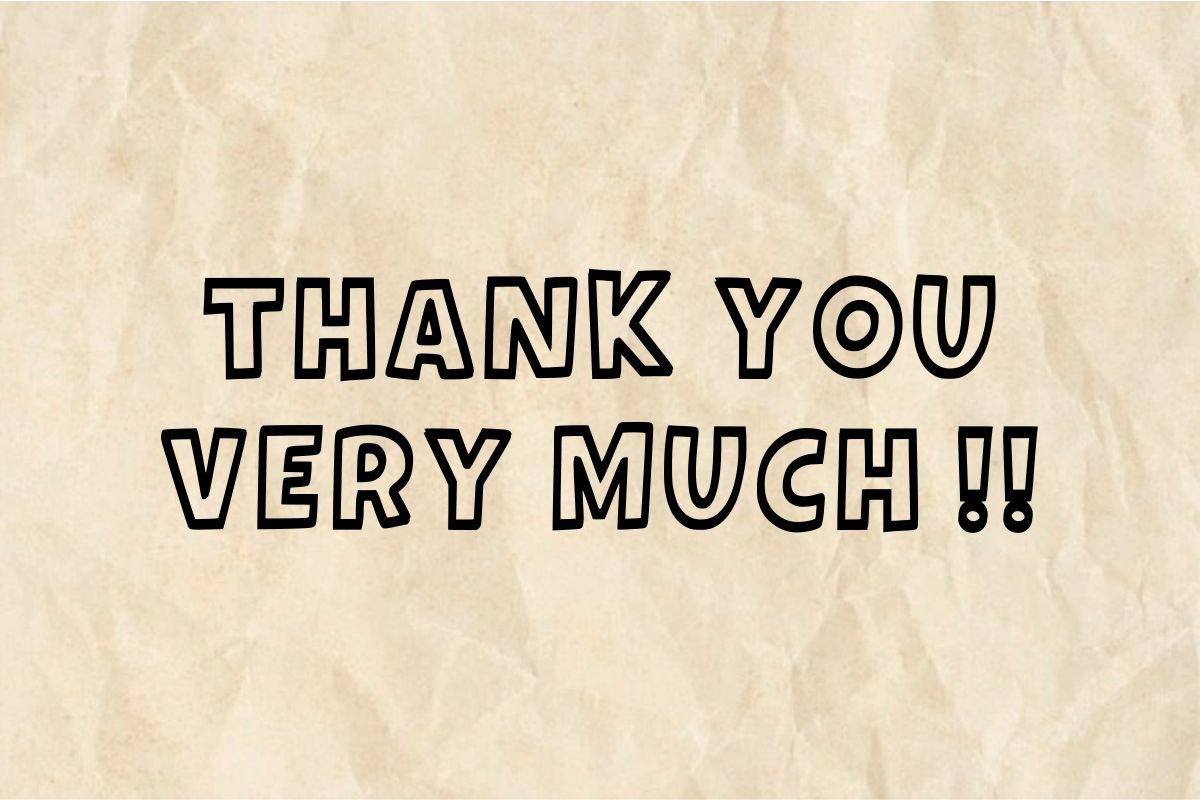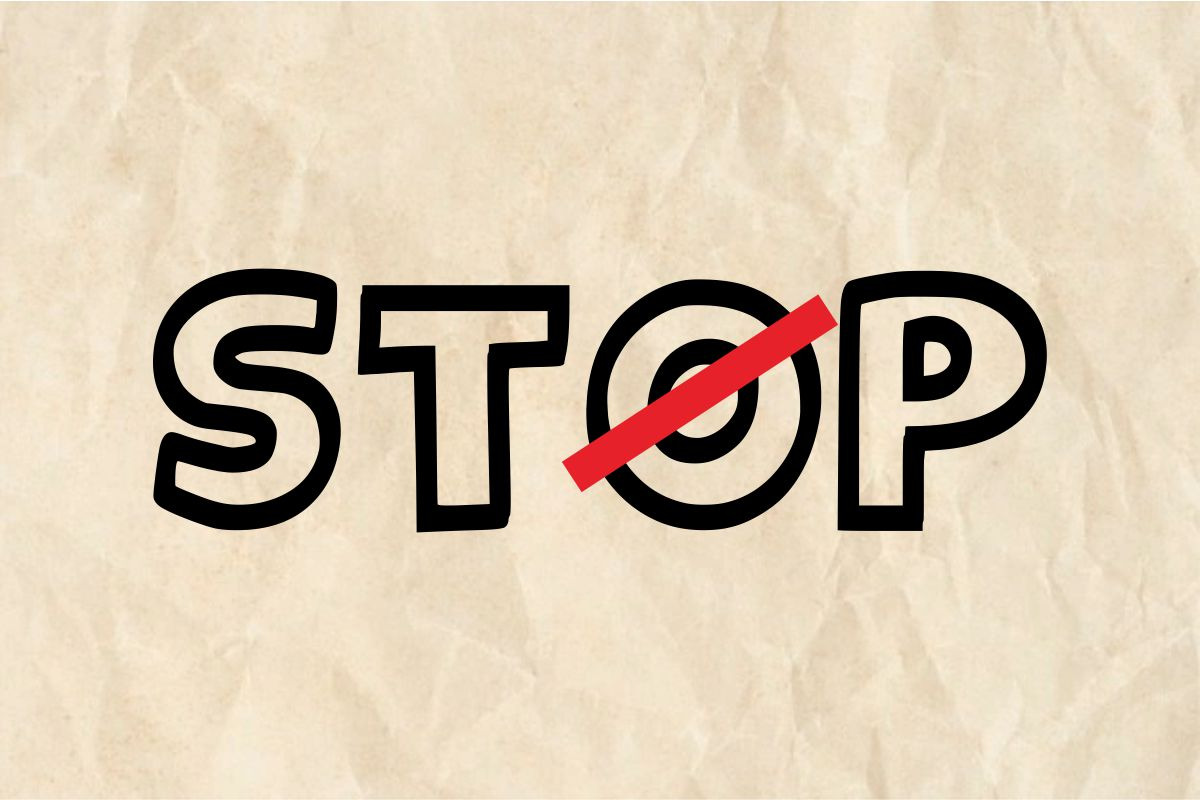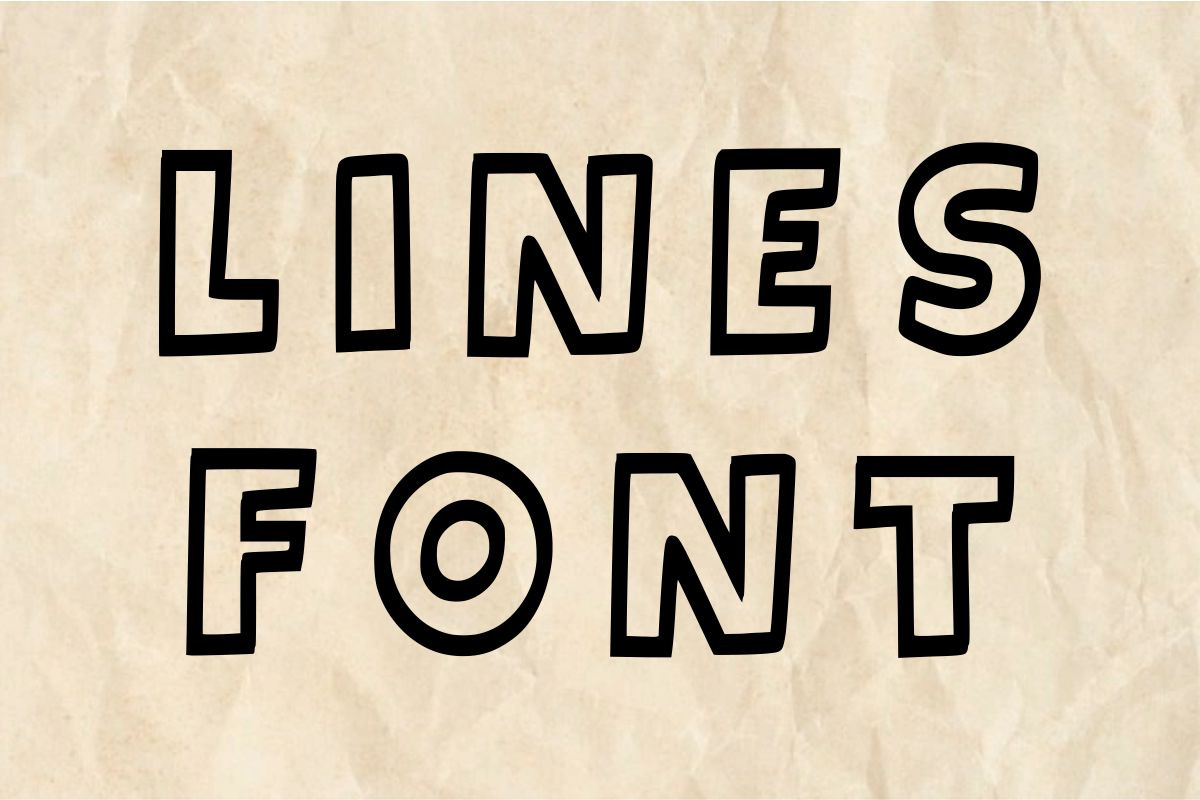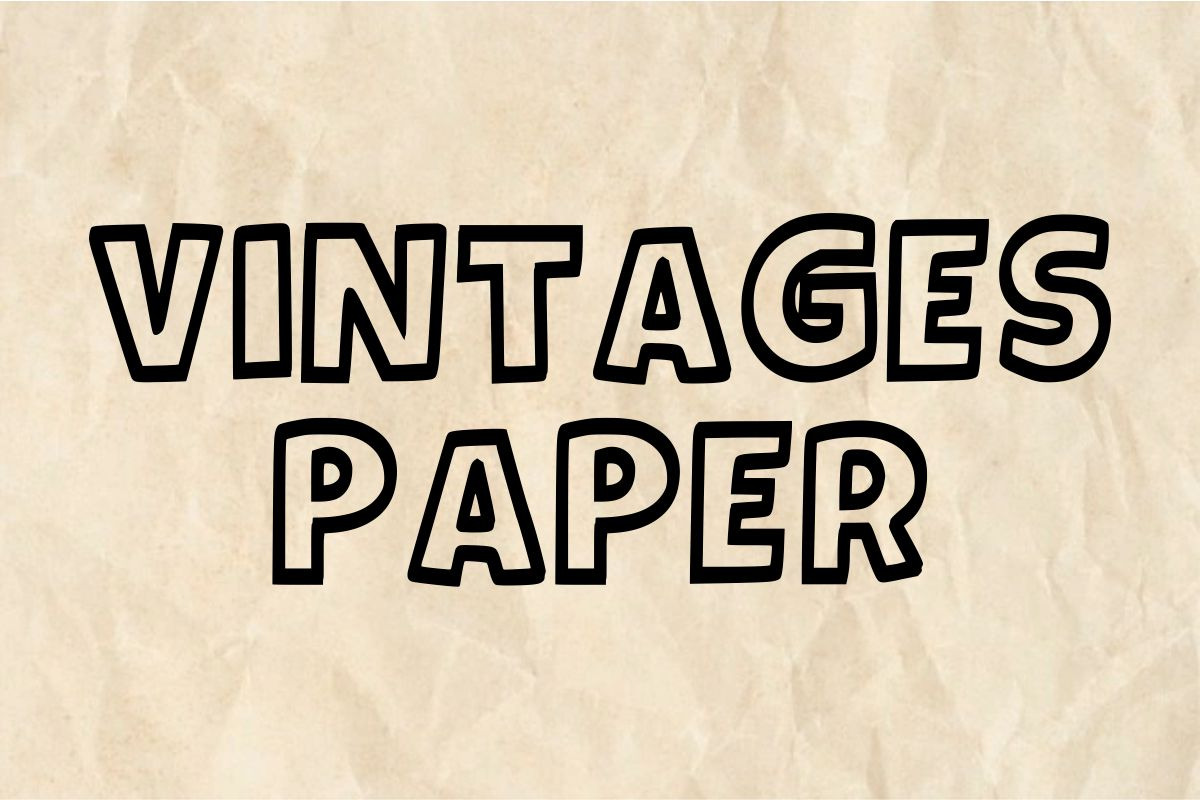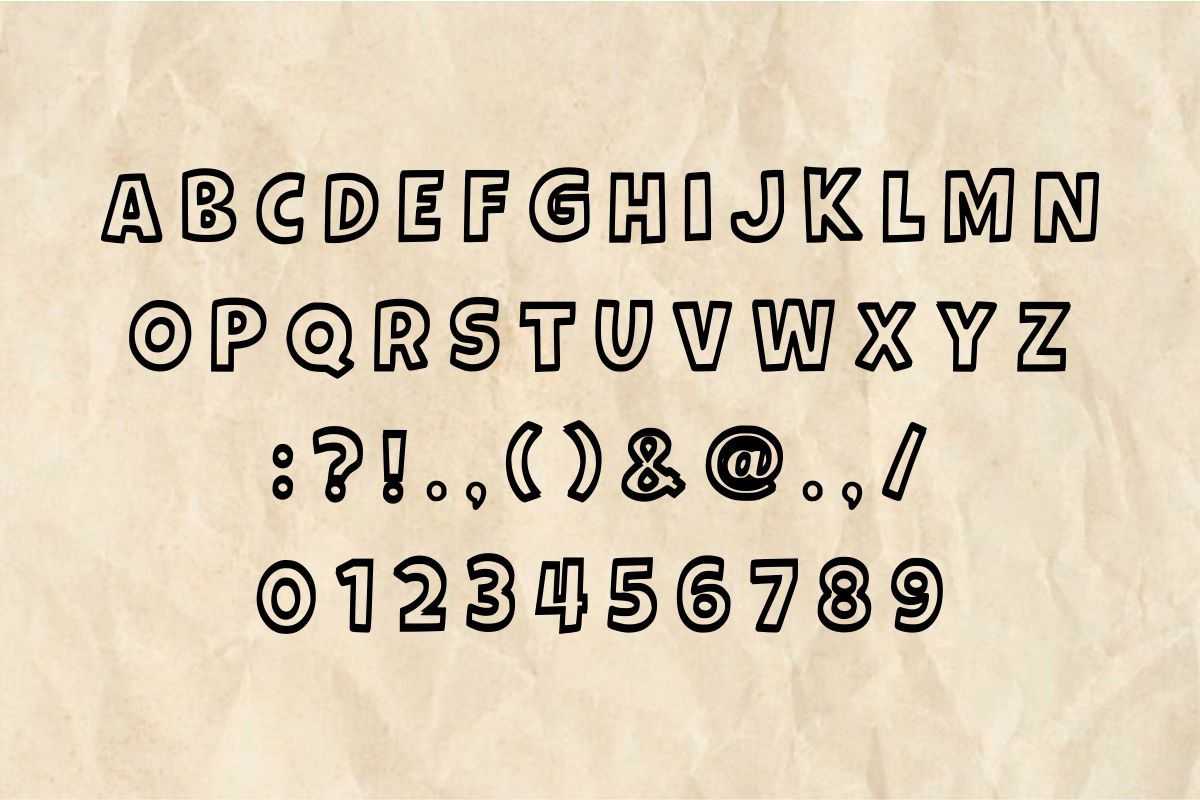
Cute Lines
Cute Lines is a neat outlined display font. It is easy-to-read and conveys impeccable friendliness. Whether you’re using it for crafts, digital design, presentations, or making greeting cards, this font has the potential to become your favorite go-to font, no matter the occasion!